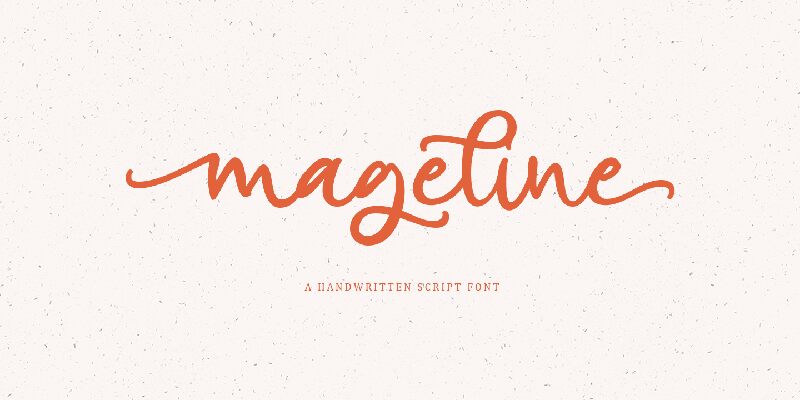
Mageline by Gustian Agung Asprilla is a breathtaking semi-light handwritten font that will add an artistic touch to any project. Its unique style has the potential to bring a personal and charming feel to wedding invitations, greeting cards, or even book covers. This versatile typeface can also be used for blog titles or social media graphics, adding elegance and sophistication to any online presence. The fluid strokes and gentle curves of Mageline create a natural flow that will draw readers in and keep them captivated. Give your designs a touch of magic with Mageline – the perfect choice for those who seek beauty in simplicity.